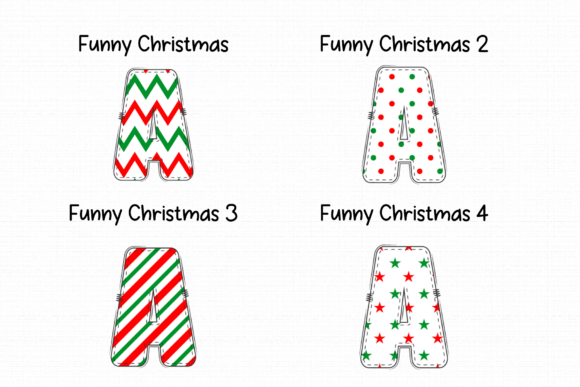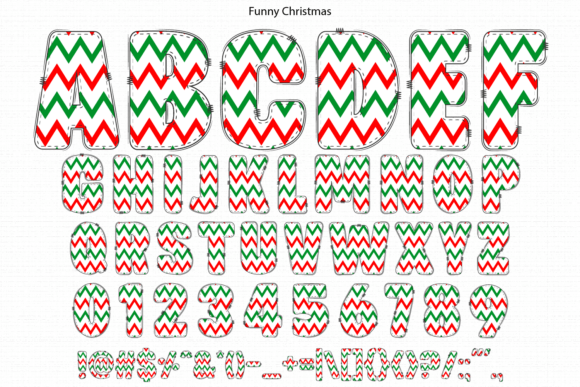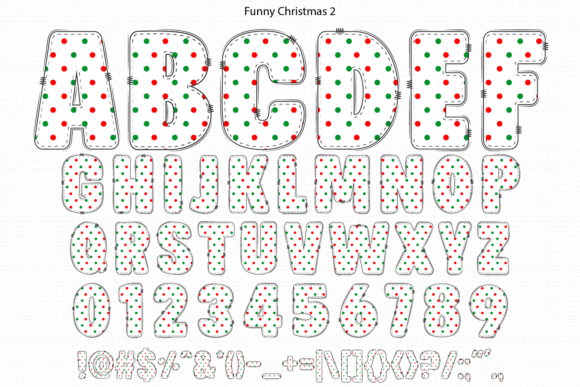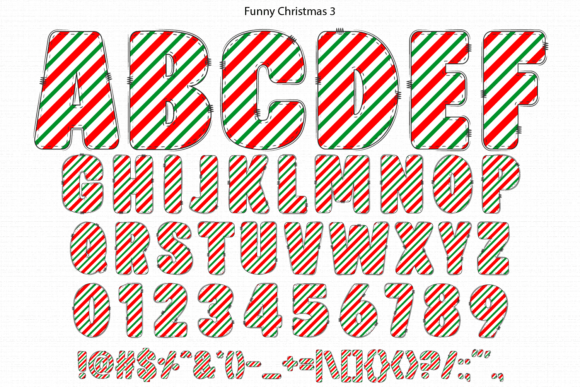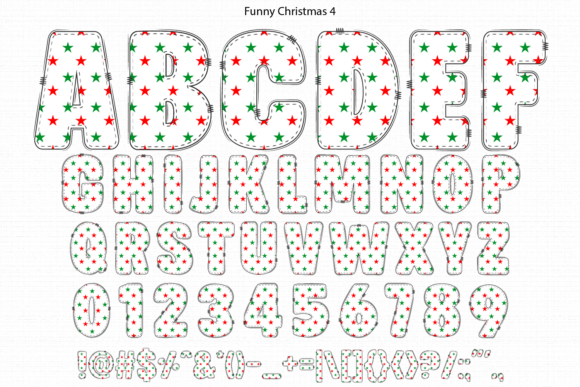
Experience the Joy of the Festive Season with Funny Christmas Font
The festive season is upon us, and what better way to spread the joy and merriment than with a lively and playful font that exudes vivacity? Look no further than “Funny Christmas”, a font that embodies the spirit of Christmas with its jubilant colors and unique letter shapes. This whimsical font is perfect for crafting captivating Christmas cards, creative party invitations, vivid holiday drapery, or engaging social media engagement.
The Perfect Embodiment of the Festive Spirit
“Funny Christmas” is more than just a font – it’s an experience. Its playful and lively design emanates a sense of jollity and laughter, making it the perfect choice for anyone looking to inject humor into their messages or craft light-hearted seasonal messages. Whether you’re a designer, crafter, or simply someone who loves the festive season, this font is sure to bring a smile to your face.
Versatility and Refreshing Novelty
One of the best things about “Funny Christmas” is its versatility. This font can be used for a wide range of applications, from creating festive holiday cards to designing engaging social media posts. Its unique and playful design makes it perfect for anyone looking to add a touch of humor and whimsy to their messages. Whether you’re looking to create something traditional or modern, “Funny Christmas” delivers a refreshing novelty that’s sure to impress.
Tips for Using Funny Christmas Font
Here are a few tips for using “Funny Christmas” font to get the most out of your designs:
- Use it for festive holiday cards and invitations to set the tone for your celebrations.
- Pair it with other playful fonts to create a unique and eye-catching design.
- Use it for social media engagement to spread the joy and merriment of the festive season.
Why Choose Funny Christmas Font?
So why choose “Funny Christmas” font over other festive fonts? Here are just a few reasons:
- Its unique and playful design makes it stand out from more traditional festive fonts.
- Its versatility means it can be used for a wide range of applications.
- Its refreshing novelty brings a touch of humor and whimsy to your designs.
Get Ready to Imbue Your Holiday Masterpieces with Funny Christmas
If you’re looking for a font that truly makes spirits bright, look no further than “Funny Christmas”. With its lively and playful design, this font is sure to bring the joy and merriment of the festive season to your designs. So why wait? Get ready to imbue your holiday masterpieces with the vibrant charm of “Funny Christmas” and make this festive season one to remember.